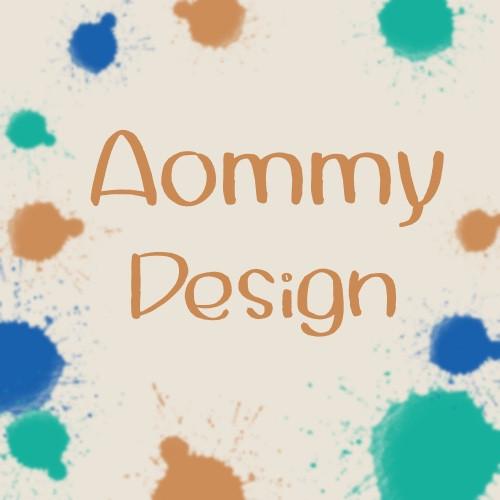
Sunny is a simple, natural and flowing handwritten font. Not too thin and not too thick, balanced and varied, this font was designed to enhance the beauty of your projects.